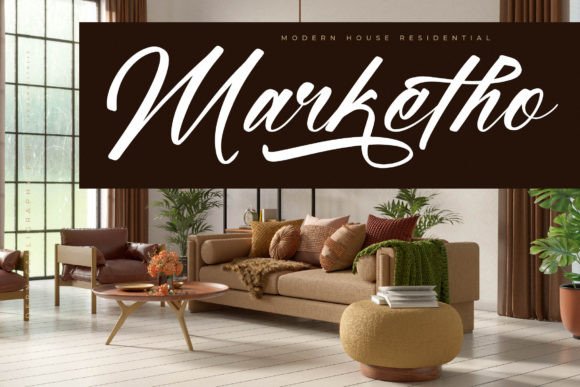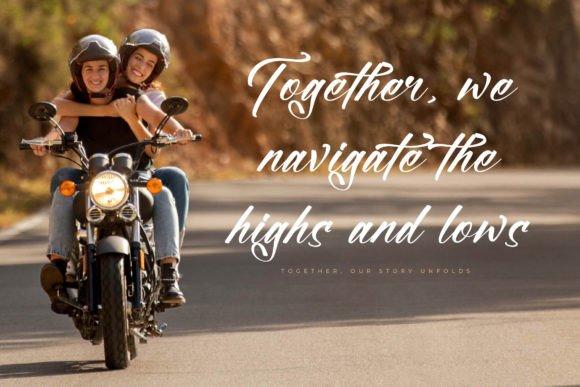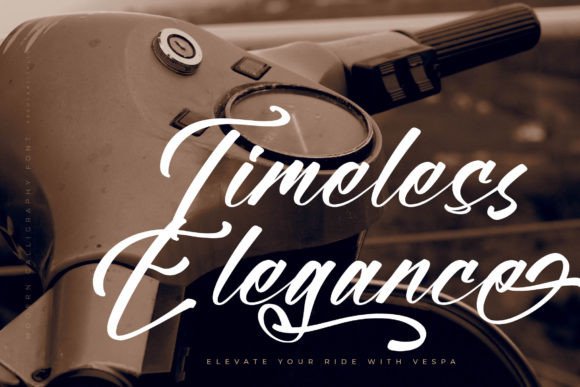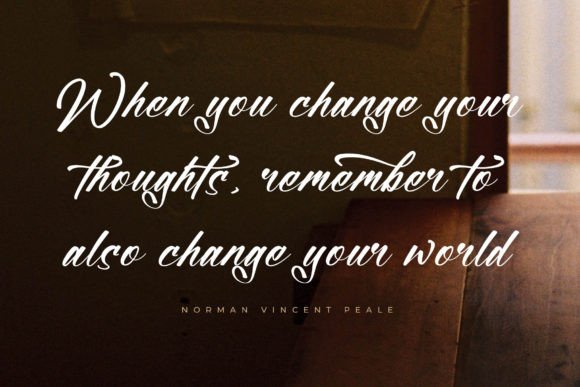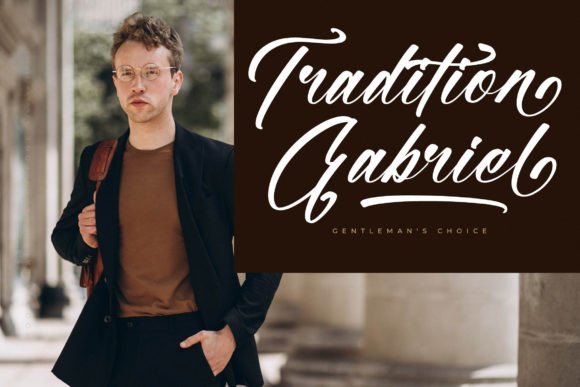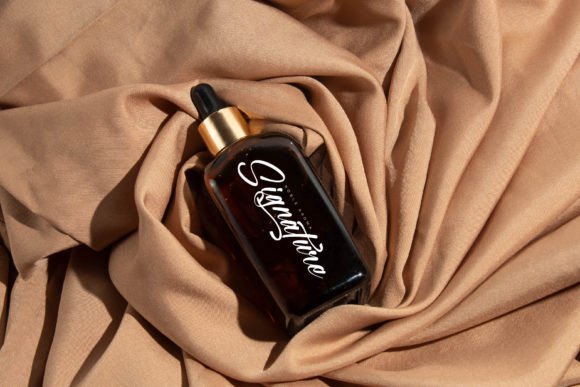
Erollitens Franklyn Font: Elevate Your Designs with Timeless Elegance
In the world of typography, few fonts manage to convey the essence of luxury and refinement as effortlessly as Erollitens Franklyn. This stylish script font is a masterpiece of modern design, boasting fluid, sweeping letterforms that exude a sense of sophistication and grace. Whether you’re a designer, craftsperson, or simply someone who appreciates the art of beautiful typography, Erollitens Franklyn is sure to captivate your senses and inspire your creativity.
The Essence of Erollitens Franklyn
Erollitens Franklyn is more than just a font – it’s an experience. Its elegant, cursive lines seem to dance across the page, imbuing any text with a sense of movement and fluidity. This font is perfect for designers who want to add a touch of glamour to their projects, whether it’s a luxury brand logo, a wedding invitation, or a high-end product catalog. With Erollitens Franklyn, you can instantly elevate your designs and convey a sense of refinement and sophistication.
Key Features of Erollitens Franklyn
- Fluid, sweeping letterforms: Erollitens Franklyn’s letterforms are characterized by smooth, flowing lines that create a sense of movement and elegance.
- Timeless elegance: This font’s classic design ensures that it will remain stylish and relevant for years to come, making it a valuable addition to any designer’s toolkit.
- Luxury and refinement: Erollitens Franklyn is perfect for projects that require a sense of high-end quality and sophistication.
- Captivating aesthetic: This font’s unique blend of style and elegance is sure to capture the attention of your audience and leave a lasting impression.
Using Erollitens Franklyn in Your Designs
Erollitens Franklyn is an incredibly versatile font that can be used in a wide range of design applications. Here are just a few ideas to get you started:
- Logo design: Use Erollitens Franklyn to create a luxurious brand logo that exudes sophistication and elegance.
- Wedding invitations: Add a touch of glamour to your wedding invitations with Erollitens Franklyn’s beautiful, flowing script.
- Product packaging: Use Erollitens Franklyn to create eye-catching product packaging that stands out on store shelves.
- Advertising: This font is perfect for creating high-end advertisements that require a sense of luxury and refinement.
Tips for Getting the Most Out of Erollitens Franklyn
To truly get the most out of Erollitens Franklyn, here are a few tips to keep in mind:
- Use it sparingly: Erollitens Franklyn is a bold font that can quickly overwhelm your design if overused. Use it sparingly to create a sense of emphasis and drama.
- Pair it with contrasting fonts: Pair Erollitens Franklyn with contrasting fonts to create visual interest and add depth to your design.
- Experiment with colors: Erollitens Franklyn looks stunning in a range of colors, from metallic gold and silver to rich jewel tones.
Erollitens Franklyn is a truly exceptional font that embodies the very essence of luxury and refinement. With its fluid, sweeping letterforms and timeless elegance, this font is sure to elevate your designs and leave a lasting impression on your audience. Whether you’re a designer, craftsperson, or simply someone who appreciates beautiful typography, Erollitens Franklyn is a must-have addition to your toolkit.